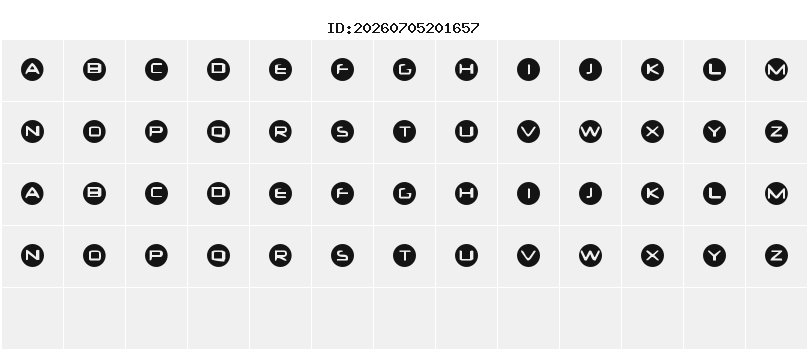
Diskoboll Preview
• Font Name: Diskoboll
• Full Font Name: Diskoboll
• PostScript Name: Diskoboll
• Character Count: 54
• Designer: Fabrice E. Ducouret
About Diskoboll.ttf
Diskoboll.ttf is a modern, elegant sans-serif font designed for ultimate readability and visual harmony. Perfect for branding, headlines, web design, and print materials.